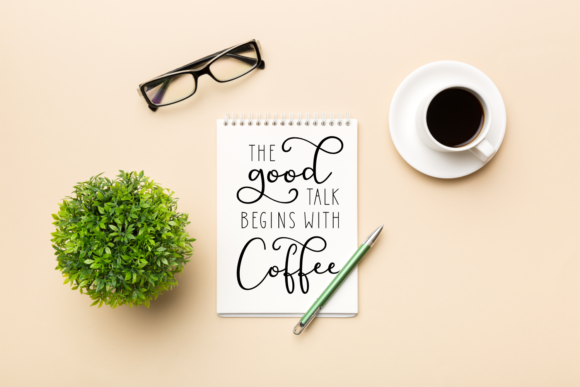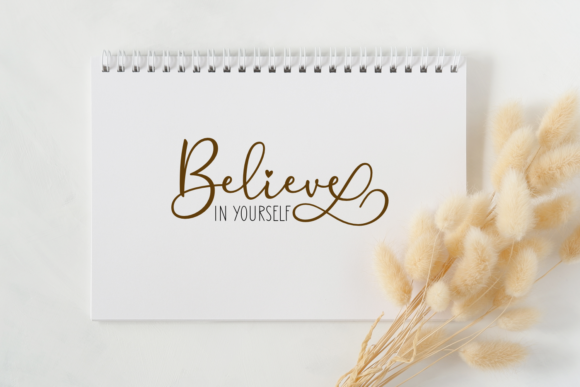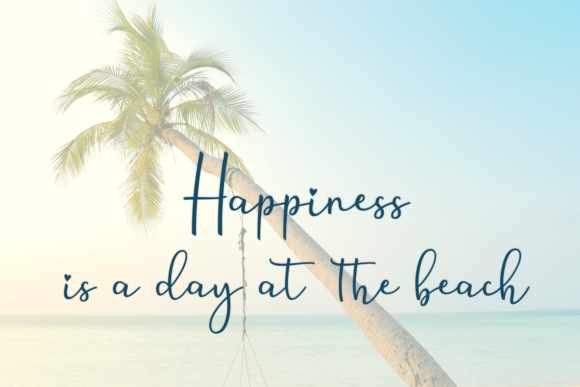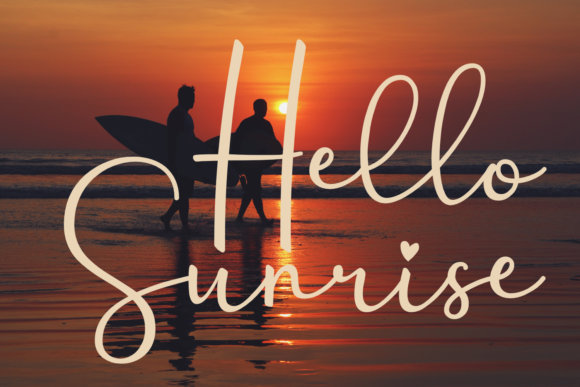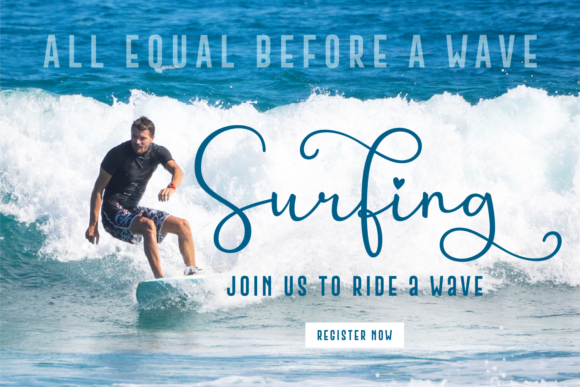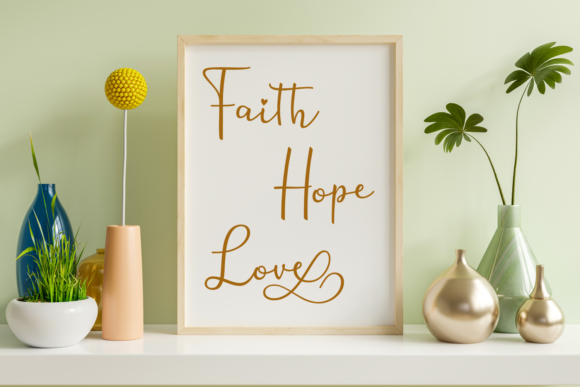
Introduction to Sillvia Font
Have you ever stumbled upon the perfect combination of words and font that just sparkles, making your design project stand out? I’m sure you have! For designers, finding that elusive combination is a thrill that never gets old. It’s the moment when creativity meets perfection, and your project is elevated to a whole new level. If you’re looking for that magic, you’re in luck because we’re about to introduce you to a stunning font that will take your design projects to new heights.
Meet the Sillvia Font, a gorgeous and modern calligraphy font that exudes luxury and sophistication. This high-quality design resource is perfect for adding a touch of elegance to your creative project. Whether you’re working on a personal branding project, creating a set of business cards, or designing a beautiful quote for your wall art, the Sillvia Font is sure to impress.
Key Features of Sillvia Font
- Features a transparent background, making it easy to integrate into designs
- Includes a comprehensive character set, covering a wide range of languages and symbols
- Perfect for designers looking for a unique and stylish font to enhance their creative project
Honest Review: Sillvia Font
The Sillvia Font has a lot going for it. It’s available for free download, which is a huge plus in my book. The font itself has a unique, elegant style that would be perfect for a variety of projects, from fashion to luxury brands. The transparent background makes it easy to work with, and the font is highly customizable.
- ✨ Unique and elegant style
- ✨ Highly customizable
However, there are a few limitations to keep in mind. The font is not as extensive as some other options, with only a limited number of characters and styles available. Additionally, the font may not be suitable for all types of projects, particularly those that require a more playful or casual tone.
- ⚠️ Limited number of characters and styles
- ⚠️ May not be suitable for all types of projects
Overall, I’m impressed with the Sillvia Font, and I think it’s a great addition to any designer’s toolkit. While it may have some limitations, its unique style and high quality make it a valuable resource for any creative project.
Tips for Getting the Most Out of Sillvia Font
To get the most out of Sillvia Font, use it with a transparent background to create a clean and modern design. You can also combine the font with other design resources, such as graphics and images, to create a unique and eye-catching design.
Common Use Cases for Sillvia Font